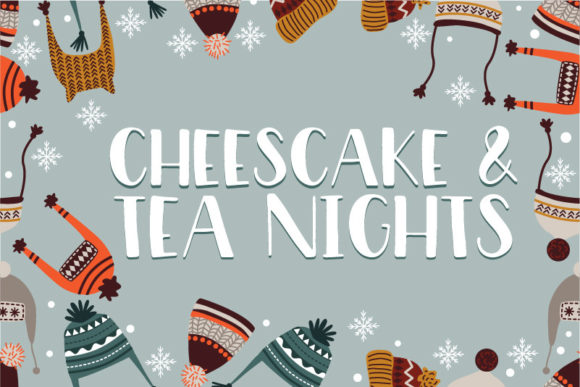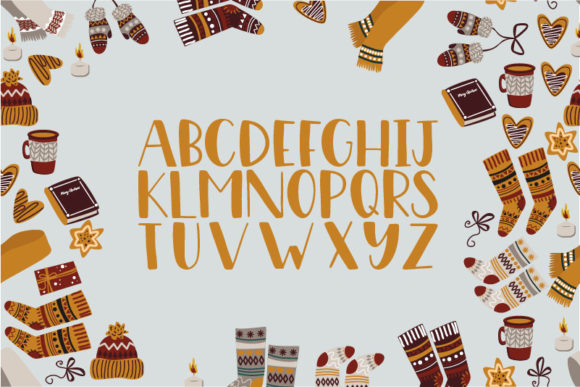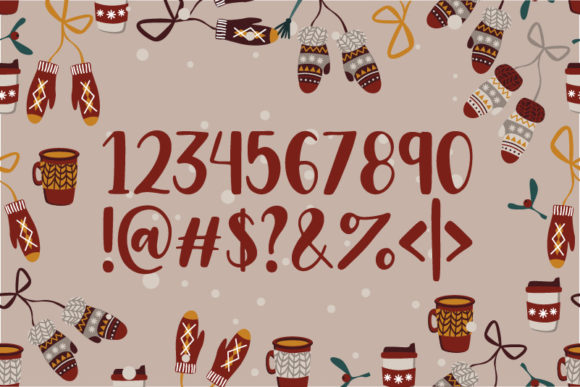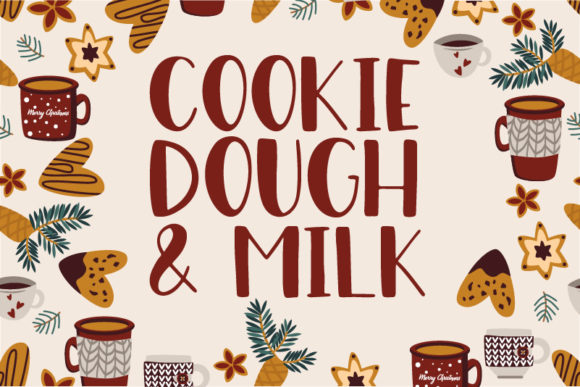
Introduction to More Cake Font
Have you ever been in the middle of a creative project, staring at a blank page or screen, searching for that perfect design element to bring your vision to life? I know I have. And then, like a sprinkle of magic dust, you stumble upon the perfect font – one that sets the tone for the entire project and makes everything else fall into place. For designers, this moment is pure bliss. And that’s exactly what the More Cake Font promises to deliver.
This cute and chic display font is the ultimate design resource for adding a trendy and joyful touch to your creative projects. With its high-quality design and transparent background, the More Cake Font is the perfect addition to any design. Whether you’re working on a free download or a paid project, this font is sure to elevate your design and make it stand out.
Key Features of More Cake Font
- High-quality design resource with a unique and playful style, perfect for creative projects.
- Perfect for designers, artists, and writers looking to add a touch of whimsy and fun to their work.
Honest Review: More Cake Font
As a designer, I’m always on the lookout for high-quality fonts that can elevate my creative projects. Recently, I stumbled upon More Cake Font, and I’m excited to share my honest review.
More Cake Font is a delightful addition to any design resource collection. Here are a few things I love about it:
- The font comes with a transparent background, making it easy to use in various design scenarios.
- The design itself is whimsical and playful, perfect for creative projects that require a touch of personality.
While More Cake Font is a great resource, there are a few limitations to consider:
- The font is limited in its character set, which may not be suitable for longer blocks of text.
- The design, while playful, may not be suitable for more formal or corporate projects.
Overall, I’m impressed with More Cake Font. It’s a fun and creative addition to any design collection, and its transparent background makes it easy to use. While it may have some limitations, I believe it’s a valuable resource for designers looking to add a touch of whimsy to their projects.
More Cake Font
Designing with More Cake Font
More Cake Font is a high-quality design resource ideal for creative projects that require a touch of whimsy and fun. With its transparent background, you can easily layer it over images or use it as a standalone element in your design.
Tips for Getting the Most Out of More Cake Font
To get the most out of More Cake Font, experiment with different font sizes, colors, and layering techniques to create unique and eye-catching designs. You can also combine it with other design elements, such as images or shapes, to add depth and interest to your project.
Common Use Cases for More Cake Font
More Cake Font is ideal for use in a variety of creative projects, including invitations, party decorations, and social media graphics. Its playful and whimsical design makes it perfect for adding a touch of fun and personality to your designs.